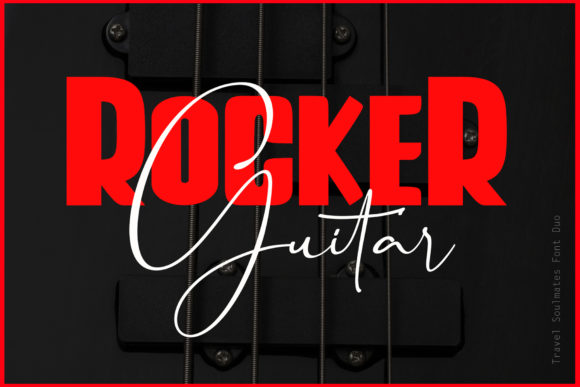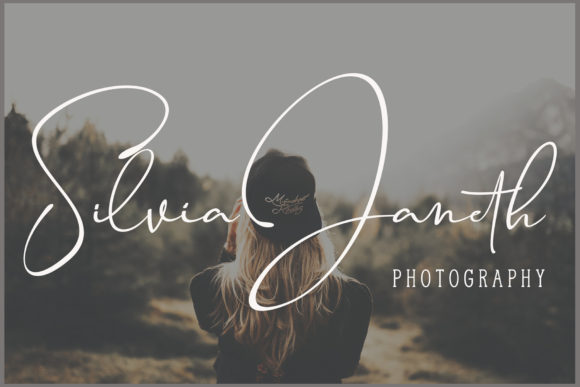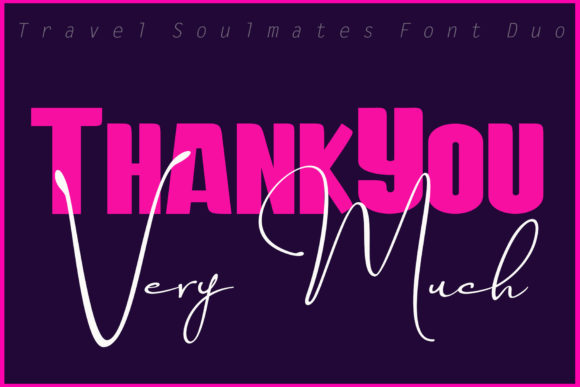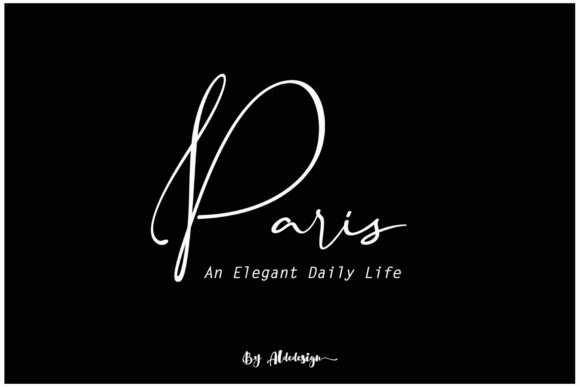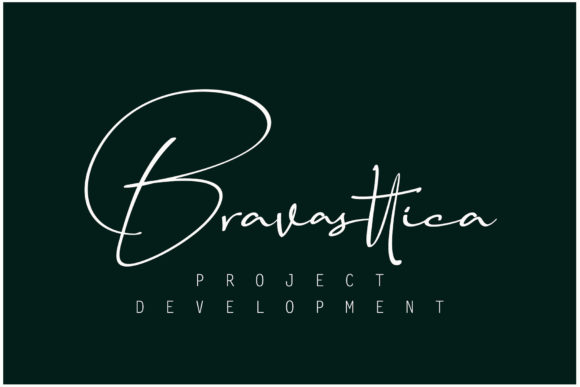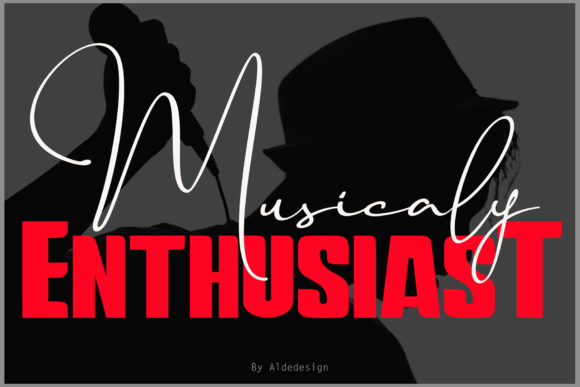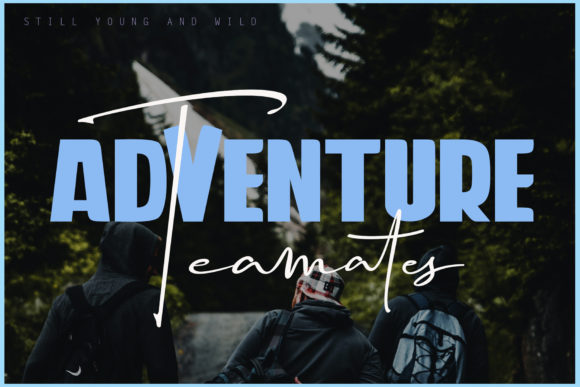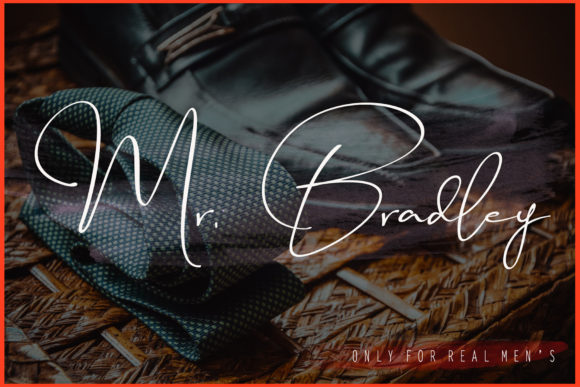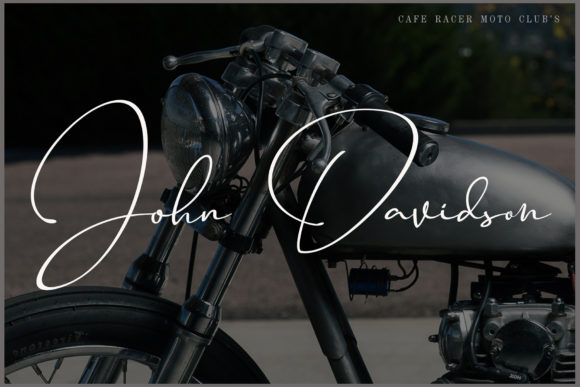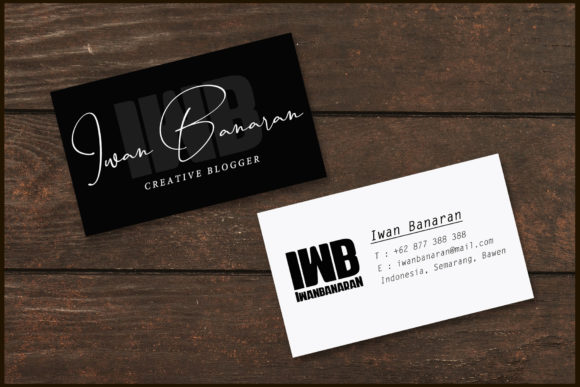
Travel Soulmates Duo Font
About Travel Soulmates Duo Font
Introducing “The Travel Soulmates,” a font duo with a simple and classy taste, offering both a signature and a bold sans version. This duo is designed to bring an elegant touch to your projects with easy usability and great readability. Whether you’re working on watermarking photography, signature logos, album covers, business cards, quotes, or any design project that demands a touch of sophistication, “The Travel Soulmates” delivers with its versatile and elegant character.
“The Travel Soulmates” duo offers a signature font for a personalized and handwritten touch, and a bold sans version for added emphasis and readability. The combination of these two fonts provides flexibility for various design applications, allowing you to achieve a harmonious and stylish look.
This classy duo is not only easy to use but also versatile in its application. Logos designed with this font convey a signature-style personal touch, creating a memorable and sophisticated brand identity. Watermarks on photography, business cards, quotes, and other designs crafted with “The Travel Soulmates” showcase a simple yet classy aesthetic, making them visually appealing and adaptable to different contexts.
The versatility of “The Travel Soulmates” makes it a great choice for a variety of creative applications, providing a font duo that adds a touch of elegance to any design context.
In summary, “The Travel Soulmates” is more than just a font duo; it’s a design companion that brings a simple and classy taste with a signature and bold sans version to your projects. Embrace its elegance for watermarking, logos, business cards, and more, and let “The Travel Soulmates” elevate your designs with a touch of sophistication and style.